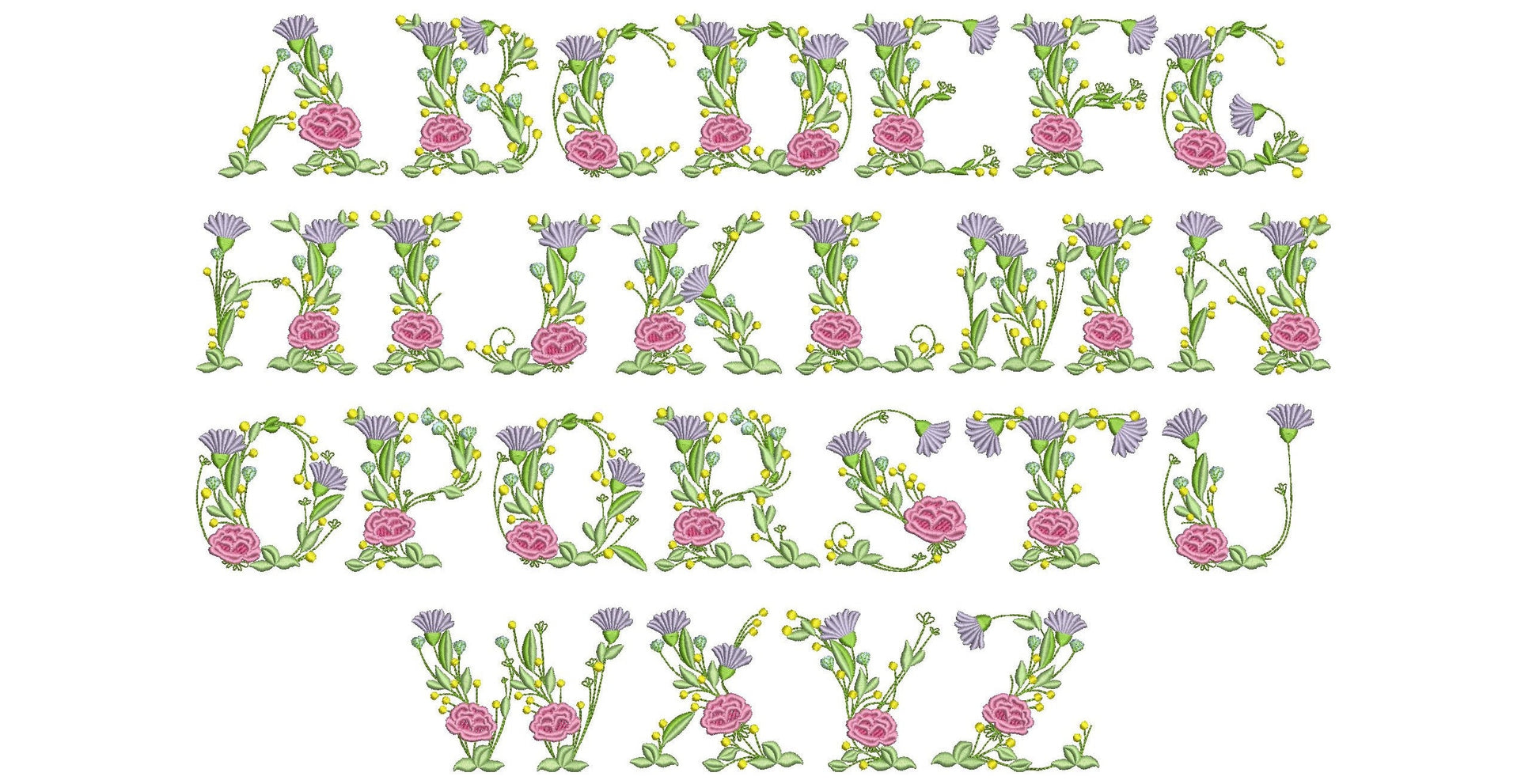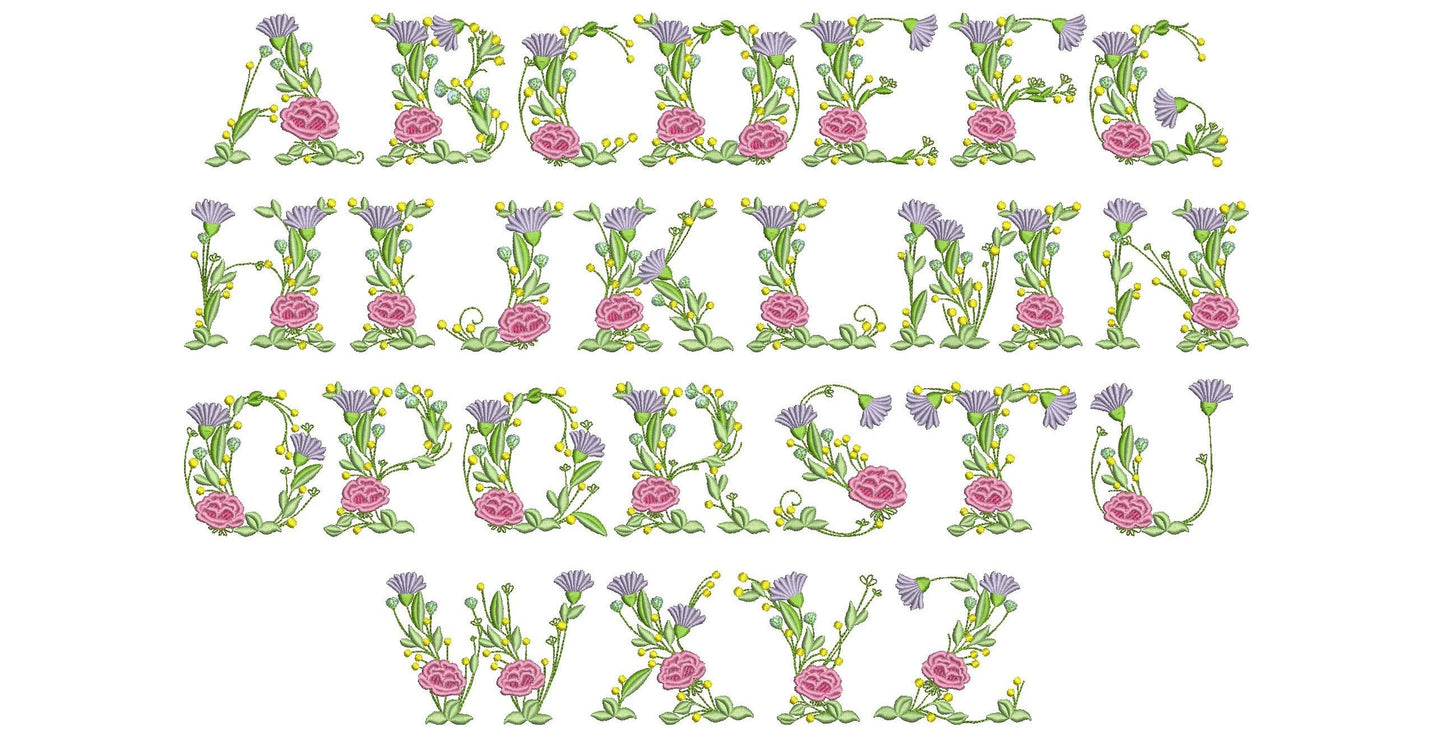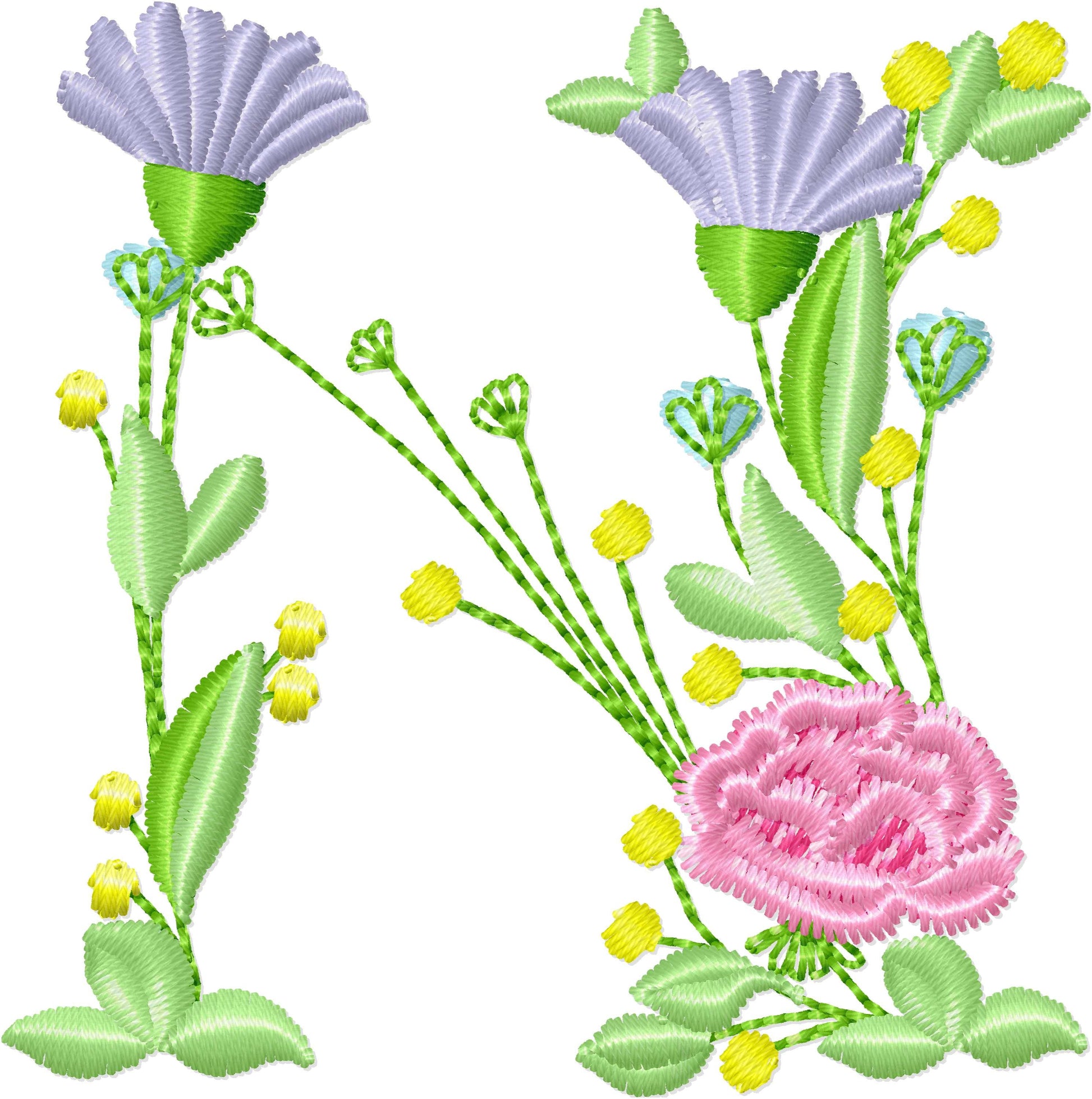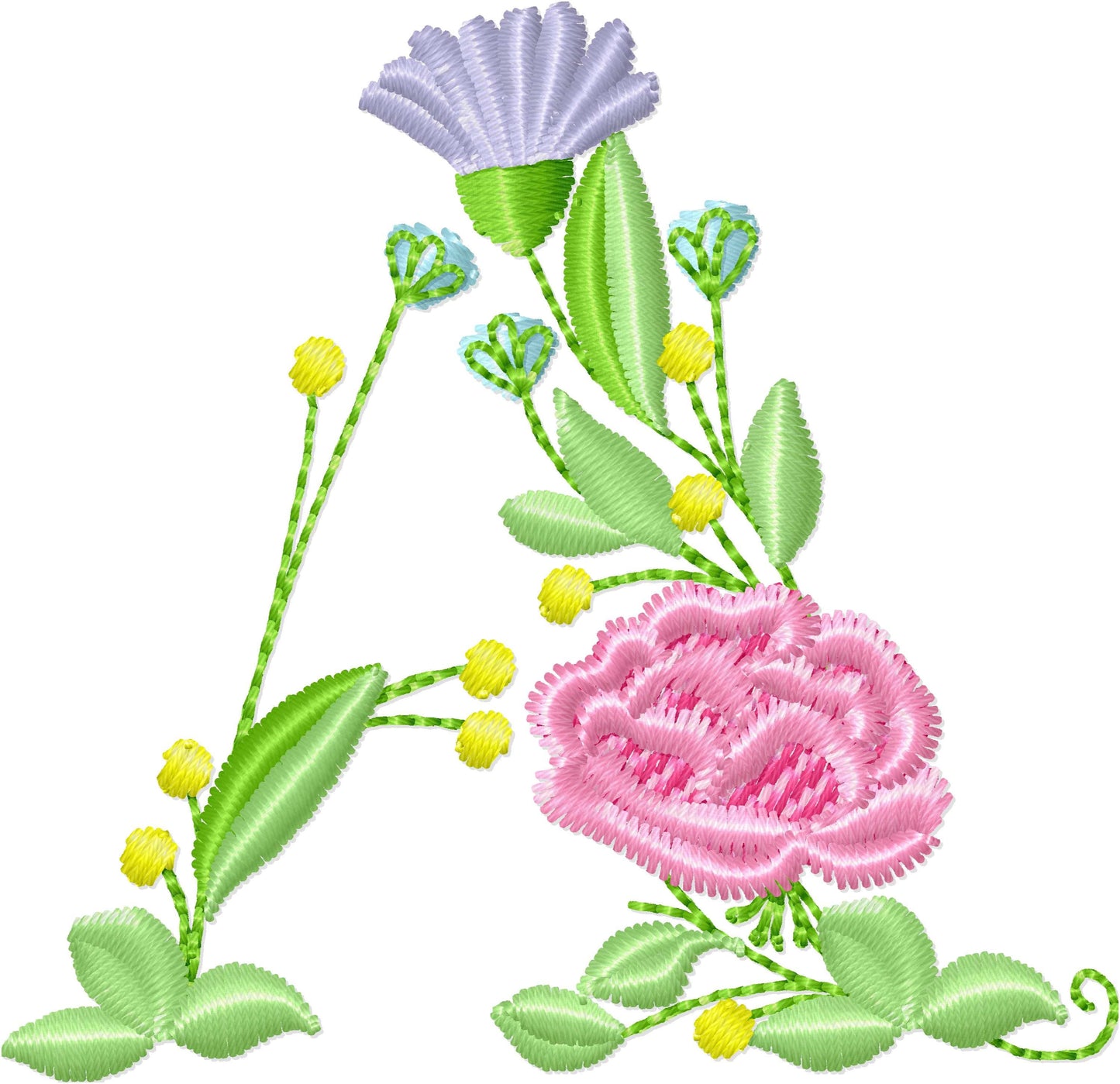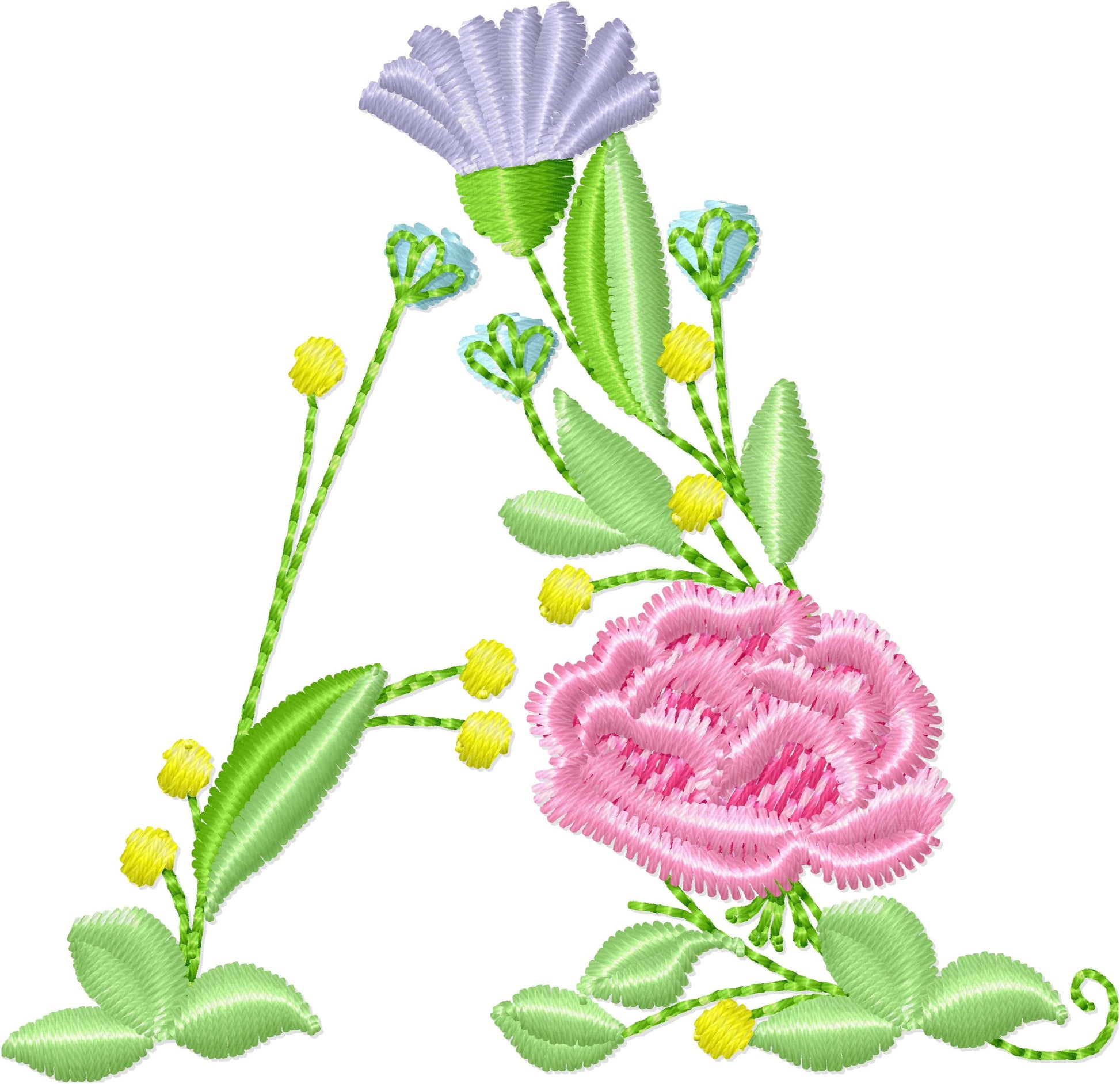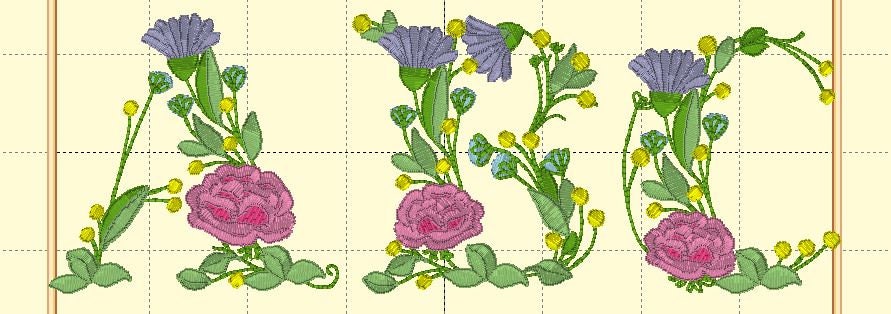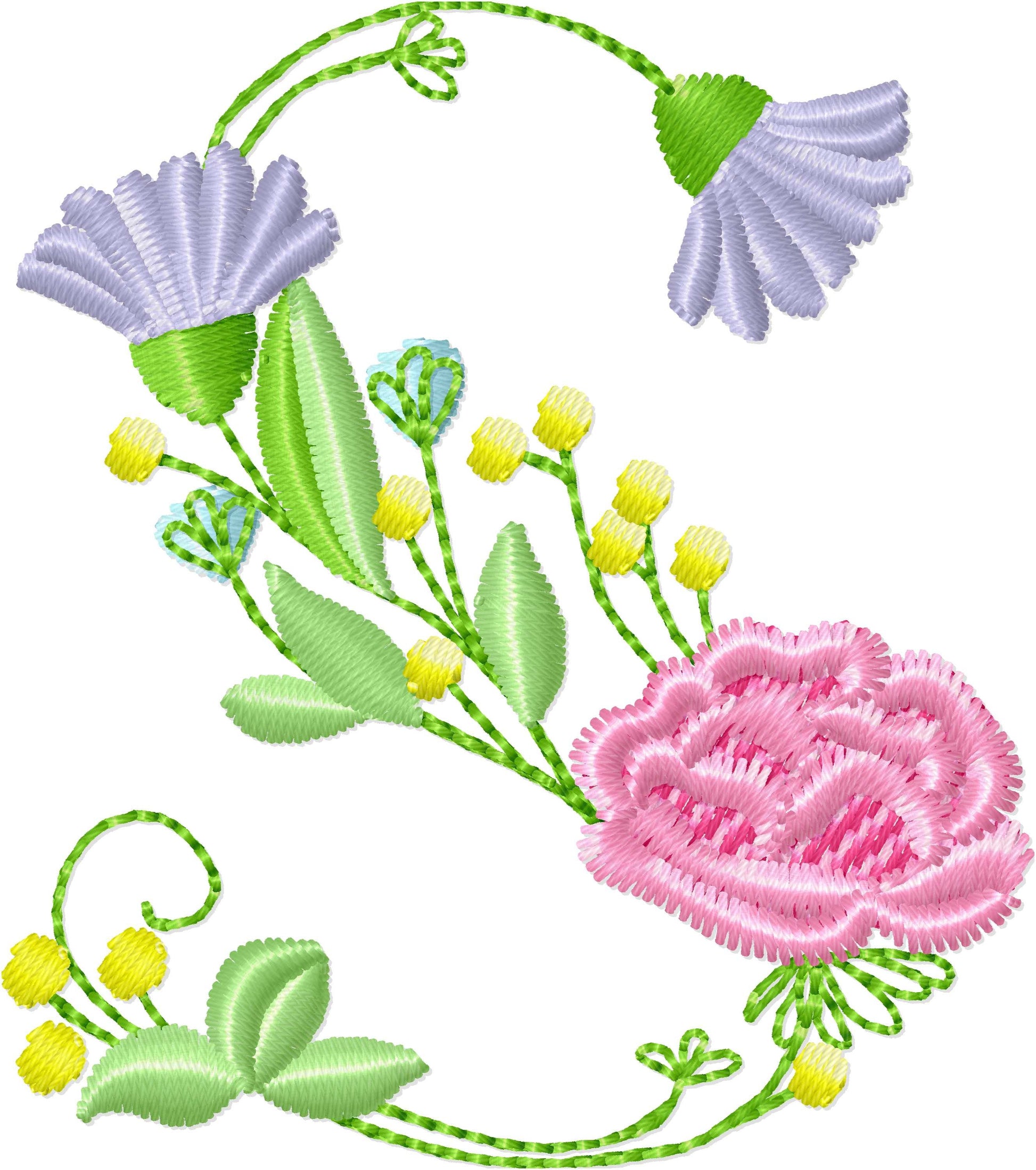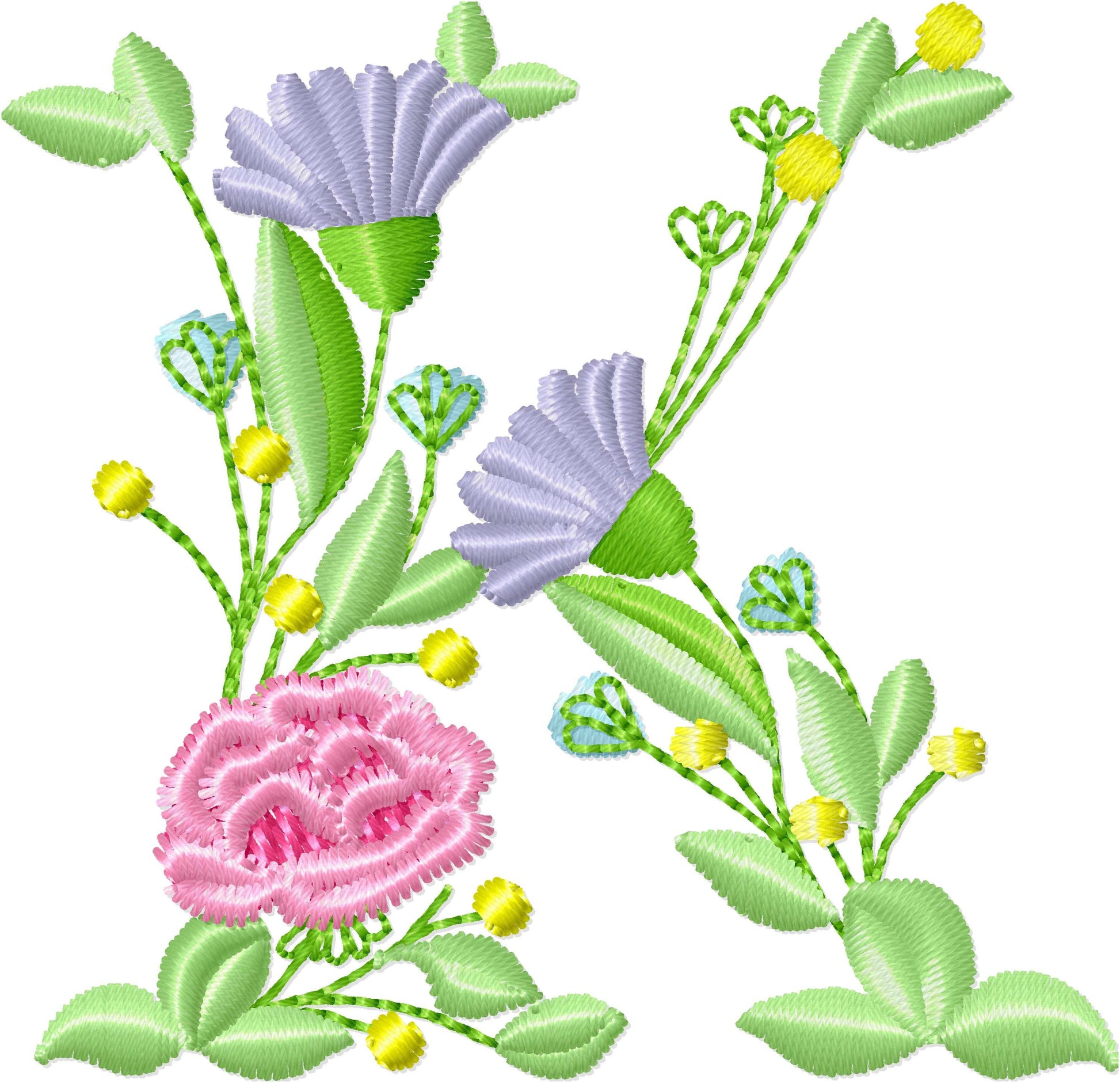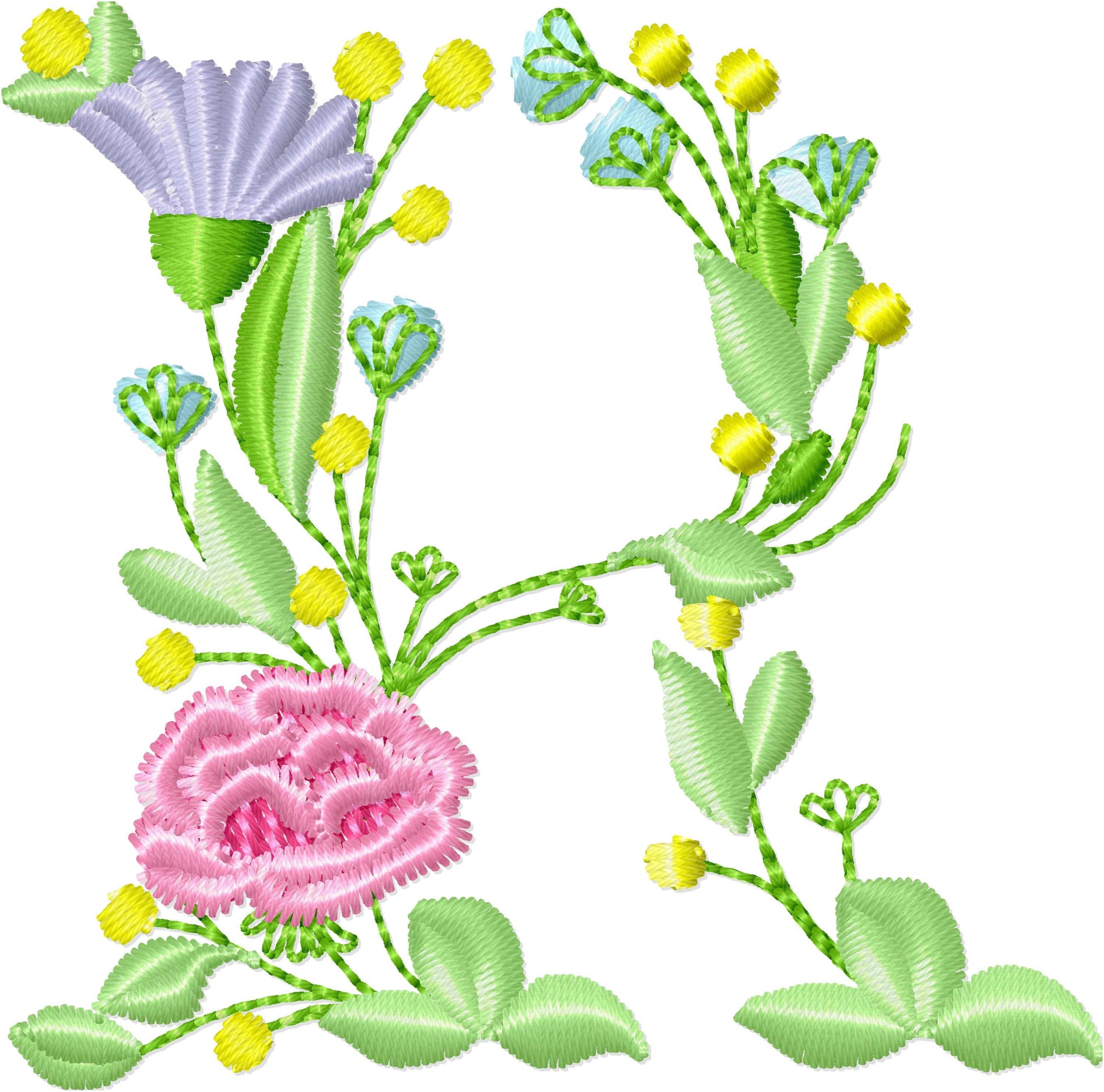
Or click to open the linkA floral block font with capital letters A to Z, for flower monograms on pillows, towels and gifts.
Each capital letter is decorated with flowers. Five sizes: 2, 2.5, 3, 3.5 and 4 inches.